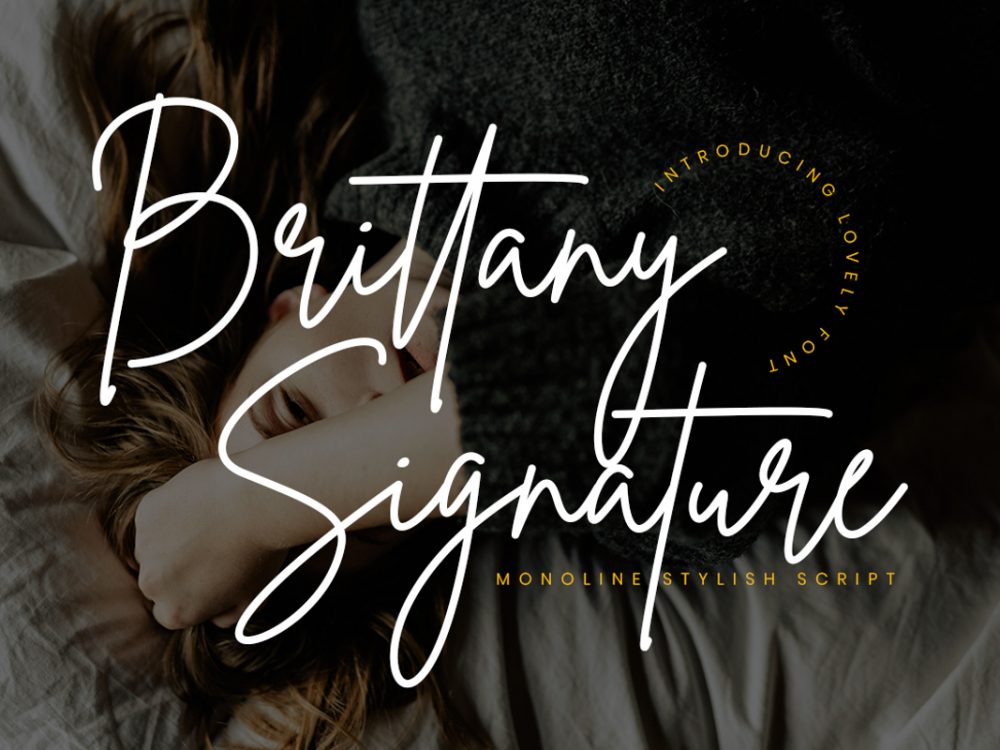
Brittany Signature Free Font
Brittany Signature Free Font is an interesting handwritten font with unique curves and elegant style. This font is very suitable for creating various design projects that require a scripted font. Use this font to create posters, cards, invitations, flyers, prints, and more.